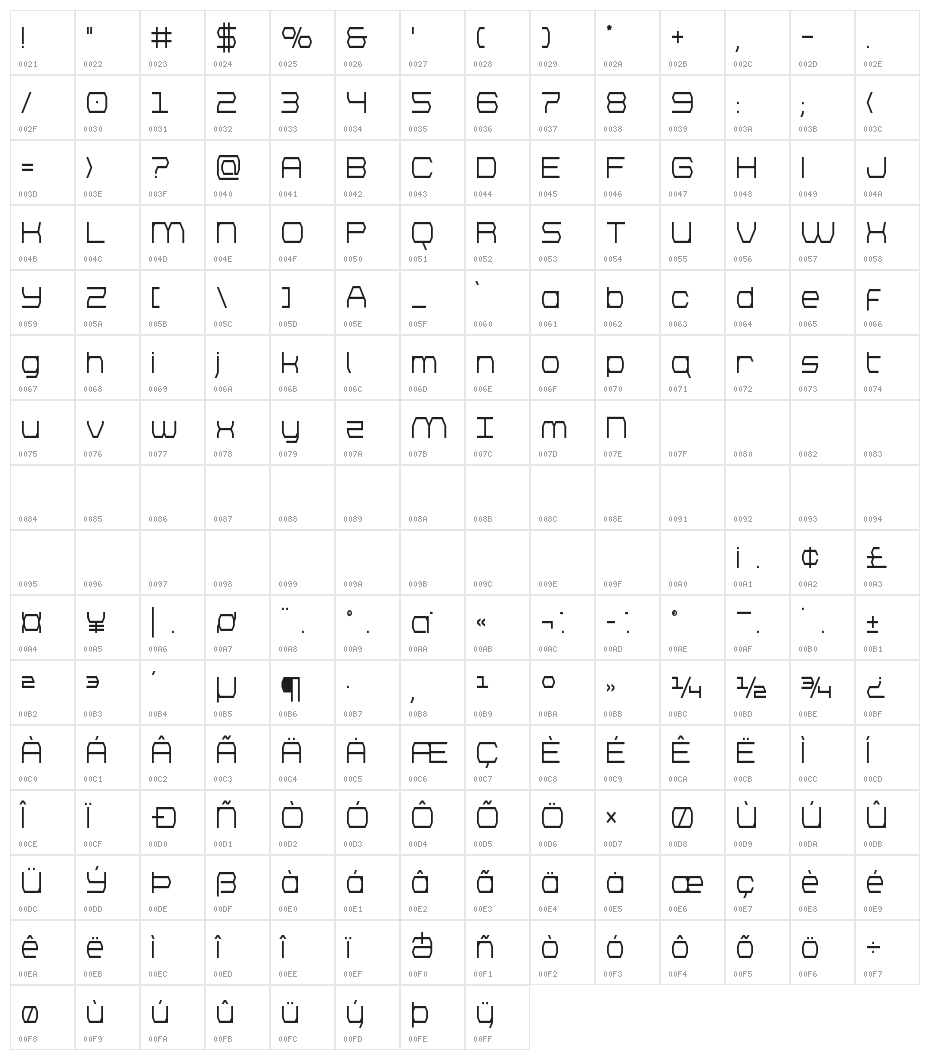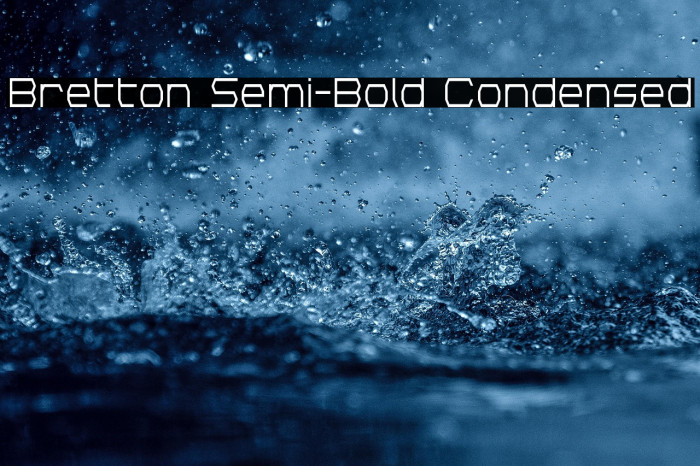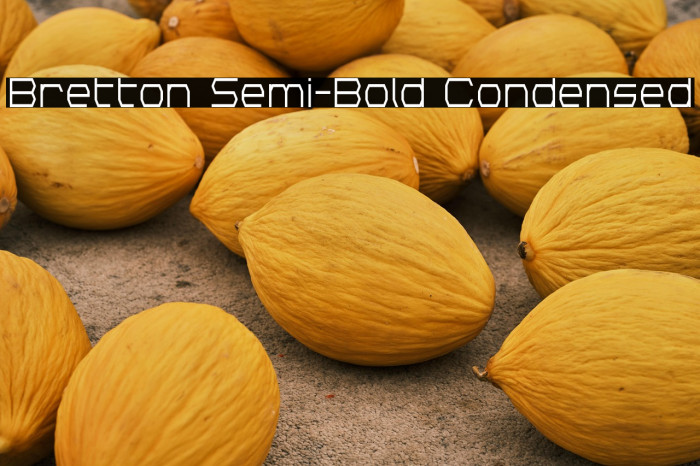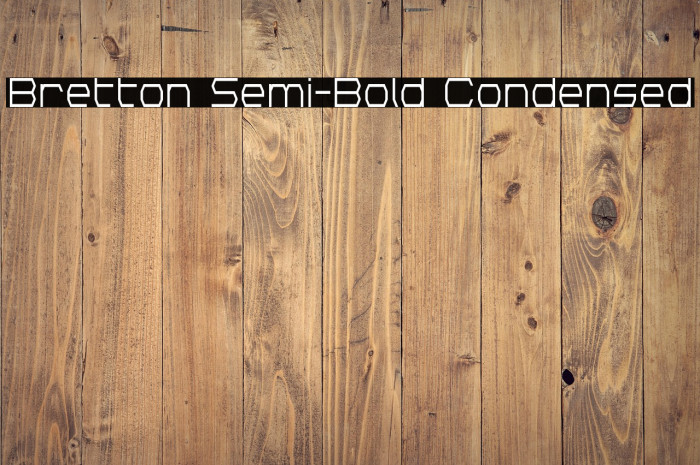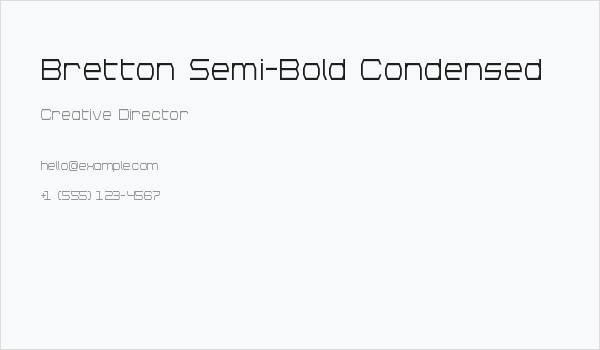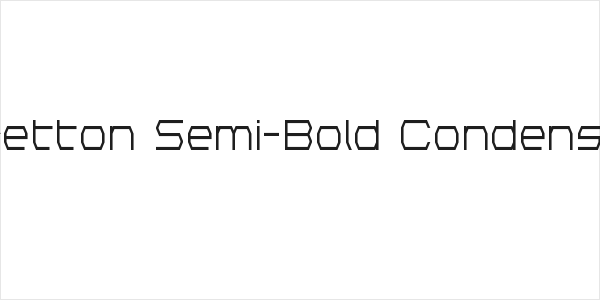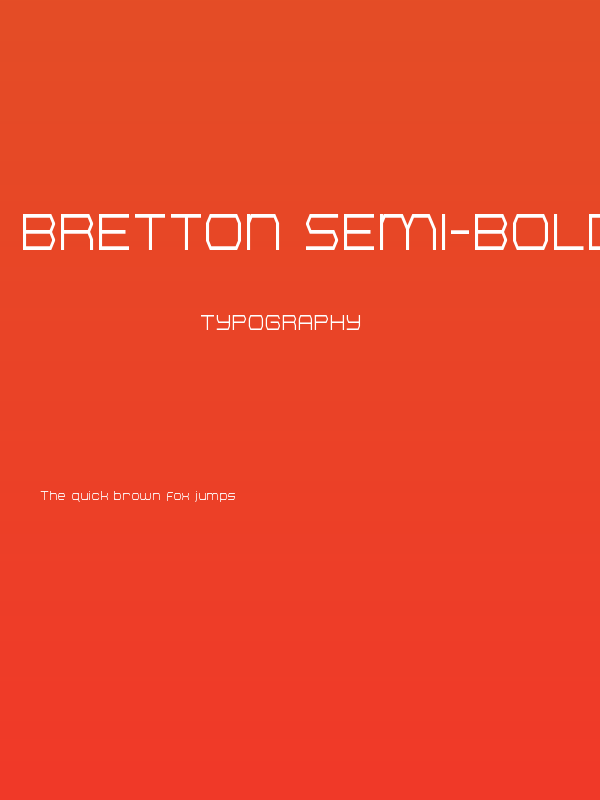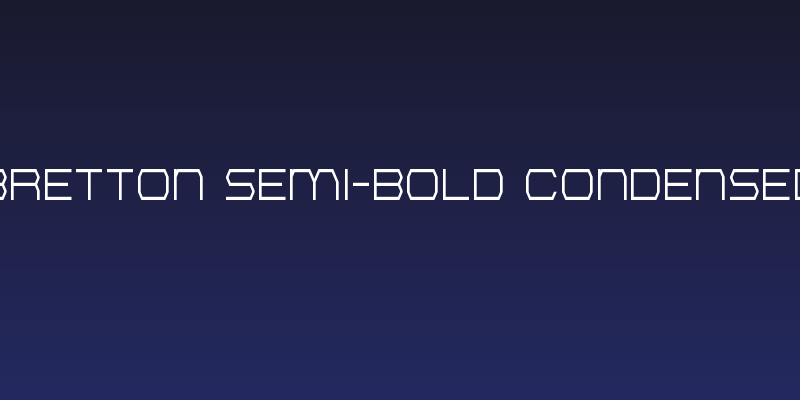
Bretton Semi-Bold Condensed Font
Bretton Semi-Bold Condensed Description
This font features a geometric and modern design with a semi-bold weight and condensed width. The characters have a distinct angular and structured appearance, giving them a futuristic and technical feel. The uppercase and lowercase letters maintain a consistent height, contributing to a uniform look across the text. The numerals and special characters follow the same design principles, ensuring a cohesive style throughout. The font's clean lines and sharp angles make it suitable for projects that require a contemporary and edgy aesthetic.
| Use Case | Headlines, Logos, Digital Interfaces |
| Proposed Projects | Ideal for technology branding, modern posters, futuristic designs, and digital interfaces. |